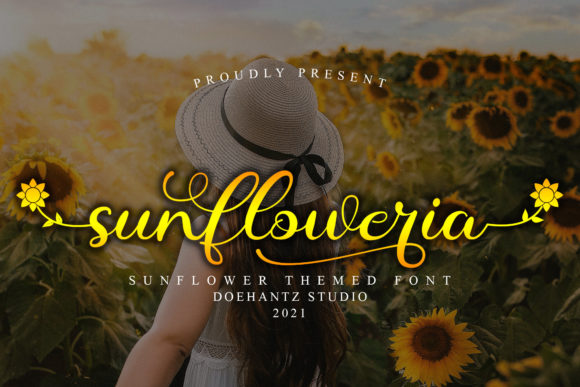
Step into a world of captivating charm and elegance with Sunfloweria Font, a masterful creation by the renowned Doehantz Studio. This enchanting script font is meticulously crafted with intricate details that breathe life into your creative endeavors. Immerse yourself in the allure of Sunfloweria's graceful strokes, as it seamlessly dances across your designs, leaving a trail of timeless beauty.
Unleash the boundless potential of Sunfloweria, a font that effortlessly complements any project. Dive into the world of personal branding and imbue your logos, business cards, and social media posts with a touch of sophistication. Craft captivating invitations, greeting cards, and wedding stationery that exude an aura of timeless elegance. With Sunfloweria as your muse, let your imagination soar and create breathtaking posters, flyers, and brochures that capture hearts and minds.
But Sunfloweria's allure extends far beyond the realm of traditional design. Dive into the digital realm and weave magic into your online presence with Sunfloweria's captivating charm. Create mesmerizing website designs that captivate visitors from the moment they land on your page. Design stunning social media posts that ignite engagement and leave a lasting impression. Embrace the power of Sunfloweria and transform your digital presence into a symphony of visual artistry.
With Sunfloweria at your fingertips, unlock a world of endless possibilities. Let your creativity blossom and bask in the admiration of those who witness your stunning creations. Join the ranks of discerning designers and elevate your projects to new heights of sophistication with Sunfloweria. Embrace the magic of Sunfloweria Font and embark on a creative journey that knows no bounds.